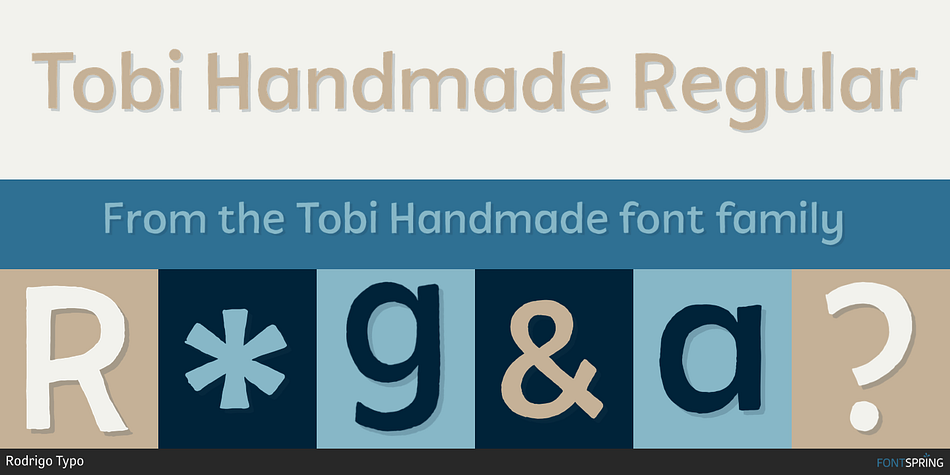
Tobi Handmade Regular
Designed by Rodrigo Araya Salas, Tobi Handmade is a hand drawn and dingbat font family. This typeface has eight styles and was published by Rodrigo Typo.
Possibly the last version of “Tobi” in this handmade version, almost entirely lettered, contains Greek and Cyrillic alphabets as well as having many Alternatives, especially for informal titles.
Designer Rodrigo Araya Salas